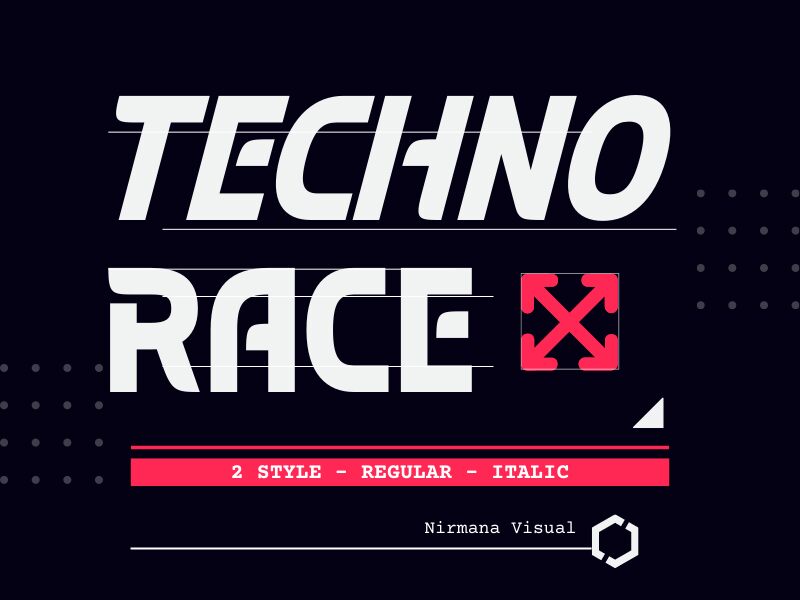
Techno Race Italic, from the Techno Race font family designed by Nirmana Visual, is a semi-bold display font that exudes a futuristic style. With its sleek lines and dynamic italicized stance, this typeface captures the essence of speed and modernity. The aesthetic appeal of Techno Race Italic lies in its ability to convey movement and energy through typography, making it an excellent choice for projects that require a sense of advancement and vigor.
Its unique characters are tailored to stand out in creative endeavors such as tech-related branding, high-energy advertising campaigns, gaming interfaces, or any design that aims to be at the forefront of contemporary trends. Whether you're looking to make a bold statement on digital platforms or crafting eye-catching print materials, Techno Race Italic is poised to give your content a cutting-edge look that resonates with an audience attuned to innovative design.
Techno Race by Nirmana Visual,
Techno Race Italic